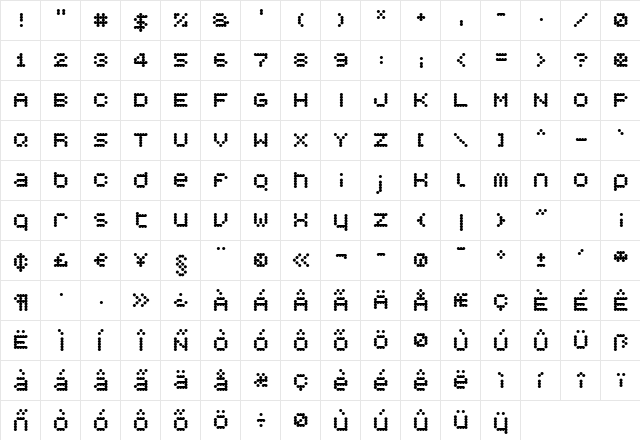
SynkroV03 Regular
Design Context for SynkroV03 Typeface
SynkroV03 is a composed and adaptable typeface that performs quietly and consistently across a wide range of design contexts.
Pro Tip: Pair SynkroV03 with a font of contrasting weight or personality to build a more expressive typographic hierarchy.